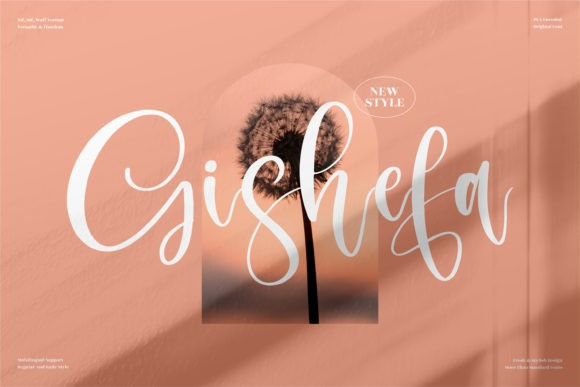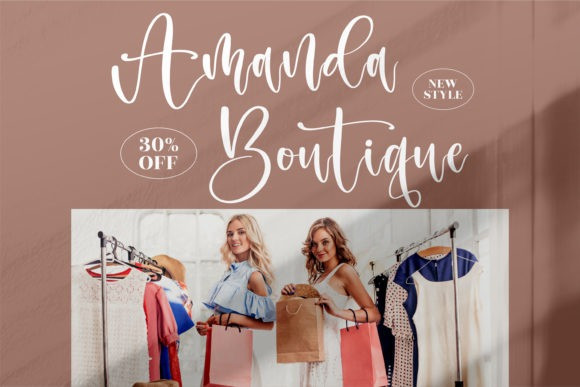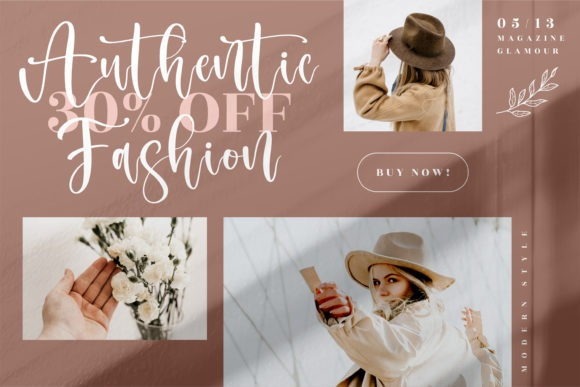
Gishefa Font
Gishefa is a whimsical and chic handwritten font, featuring a unique feel and a stunning impact. It will add a luxury spark to any design project that you wish to create!